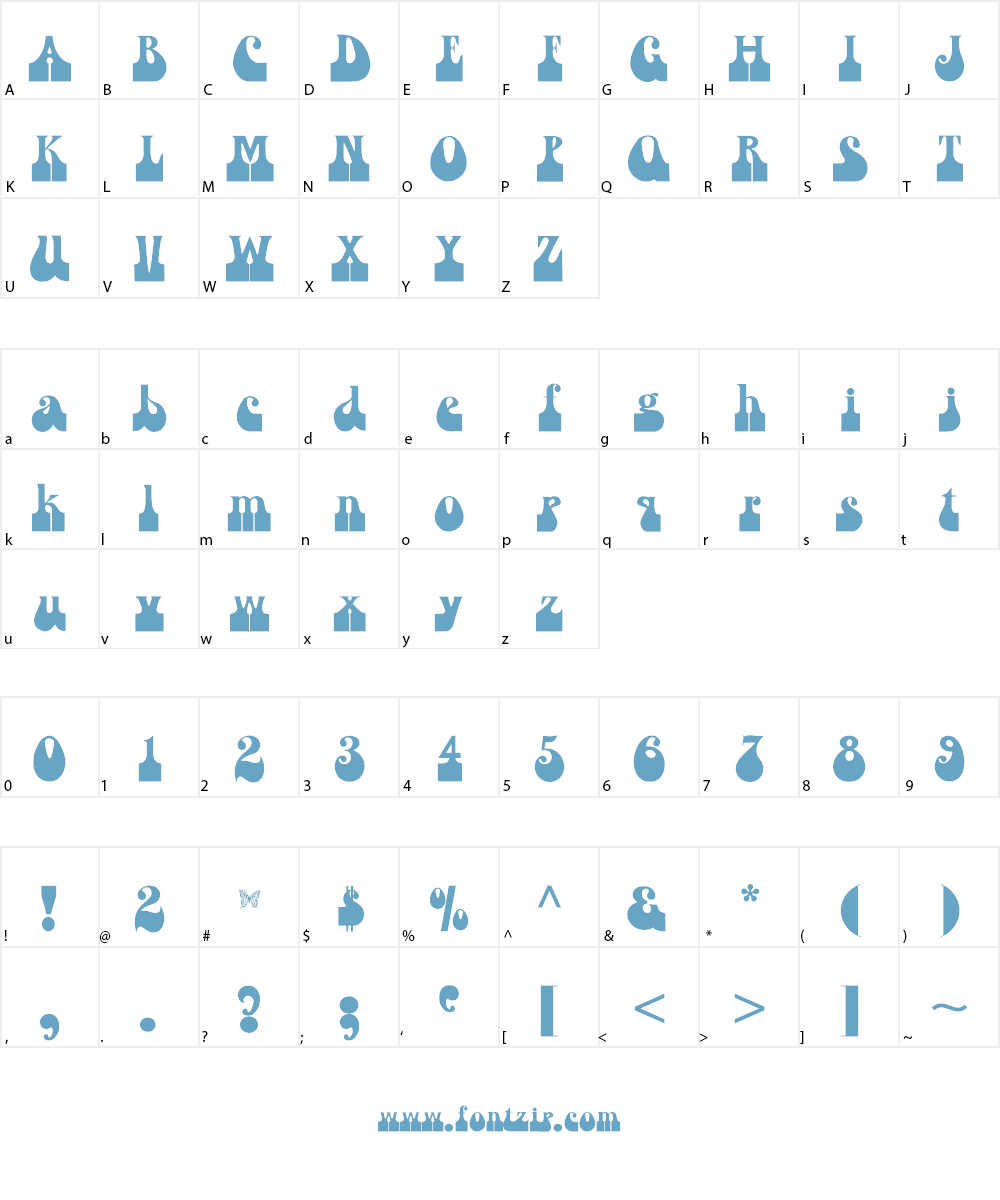
An attemp to digitize original 1964 Chwast's Artone font, i used some characters of Loose Caboose NF (All Rights Reserved to Nick's Fonts) because i couldn't find the original numbers etc.